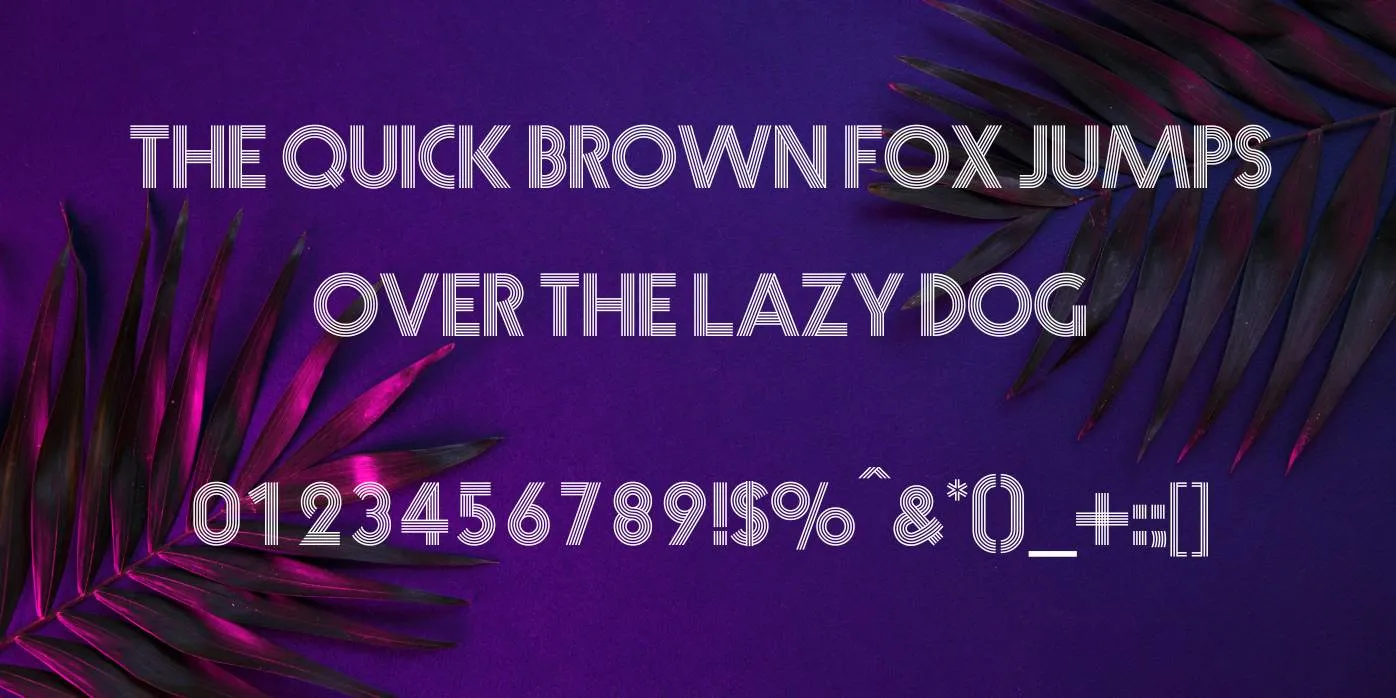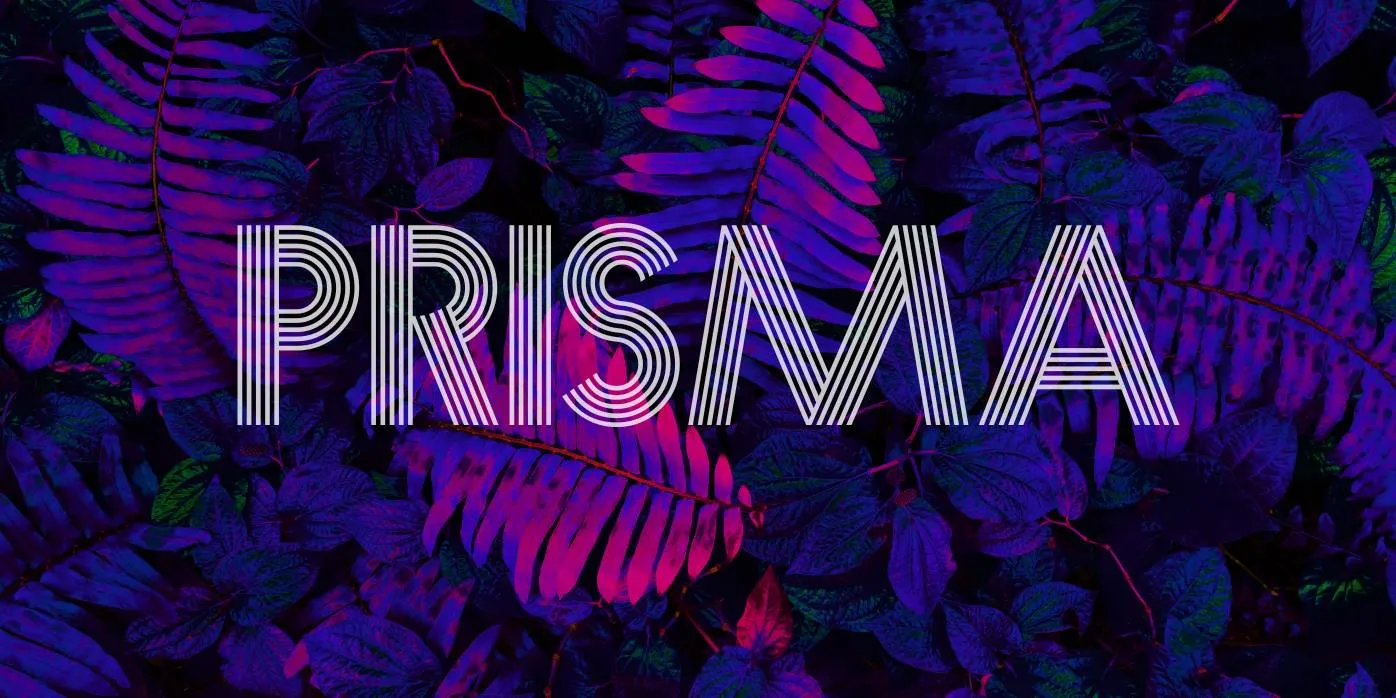
≠Prisma Font
Here we discuss a unique and amazing font with a fancy style. This font was designed by Entworfen Von and Rudolf Koch. It supports Unicode BMP only. It has 200 characters, 198 glyphs, and 1000 units per Em.   Embedding rights are allowed for permanent installation.
The weight of the font is Bold and the width of the font is Medium. It supports two file formats that are TTF (True Type Font) and OTF (Open Type Font). The posture of the characters is upright and its pitch is not monospaced. Its characters contain five state lines with the style of sans serif.